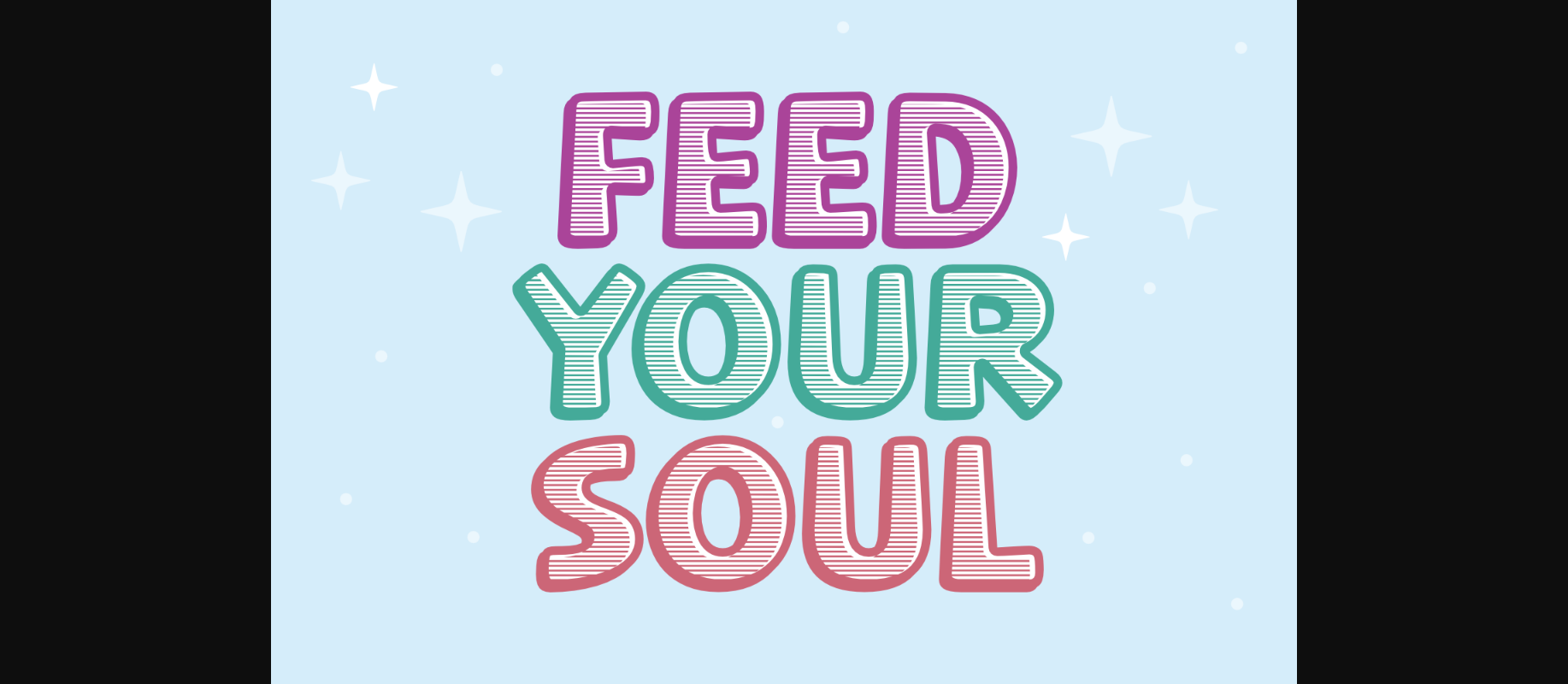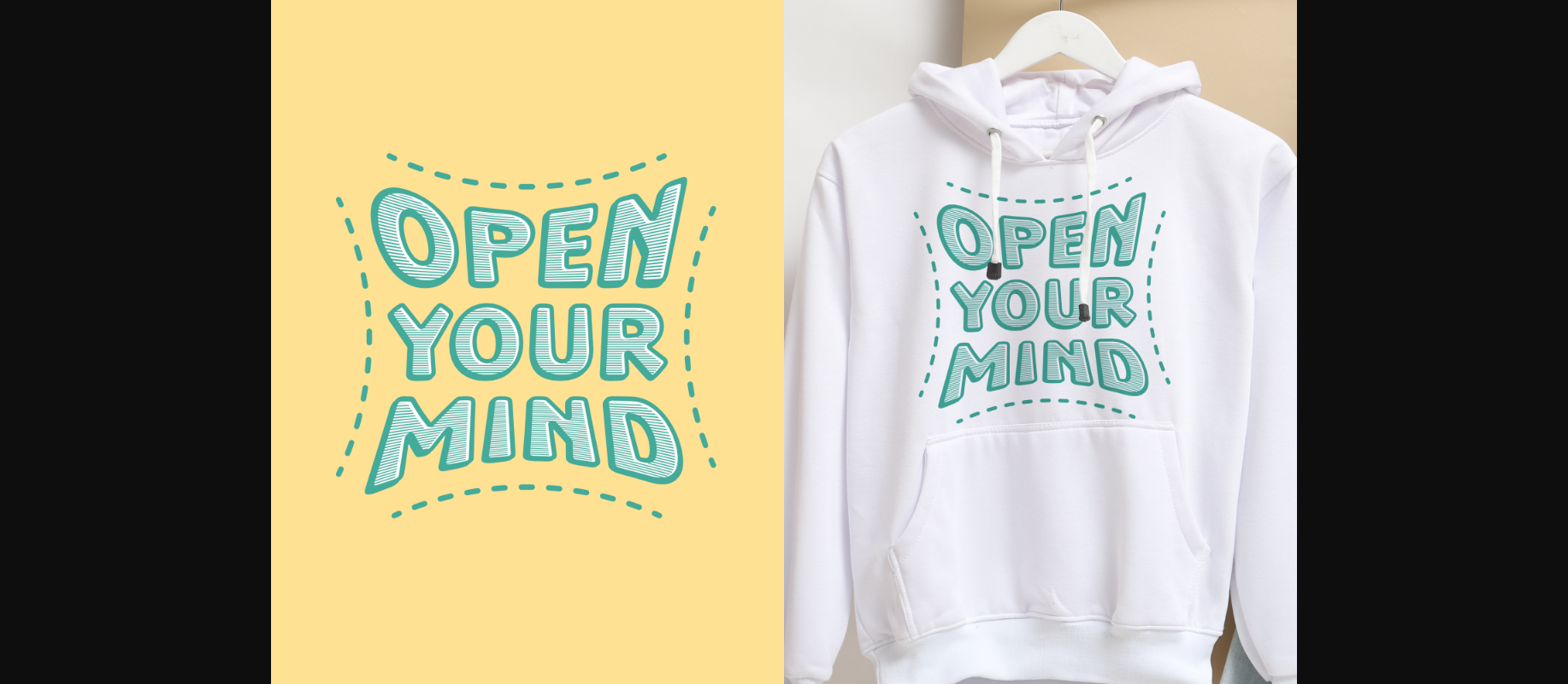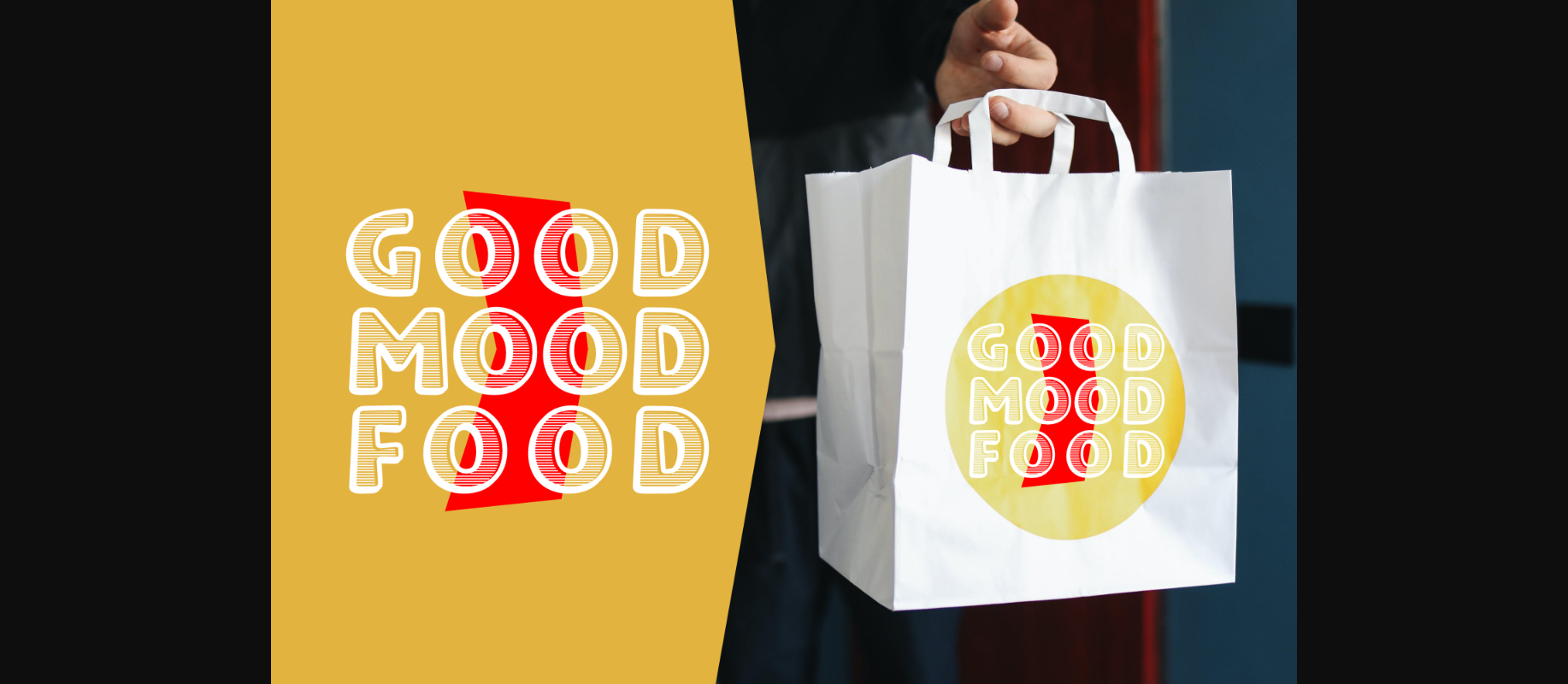
About Feed Your Soul Font
Feed Your Soul captivates with its characteristic, cheerful dynamism. This hand-crafted typeface embodies an irresistible fusion of bold shapes, striking stripes, and suggestive shadows. Exuding a delightful, cartoon-esque vibe, it serves as an indispensable tool for crafters, infusing any design with its distinctive allure. This playful font truly brings a remarkable touch of uniqueness to your designs, ensuring they’re as soulful and fascinating as you intend them to be.